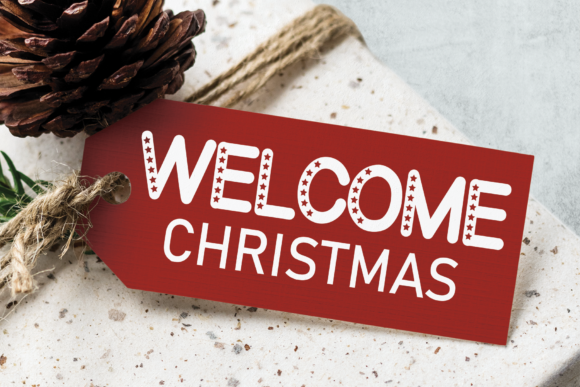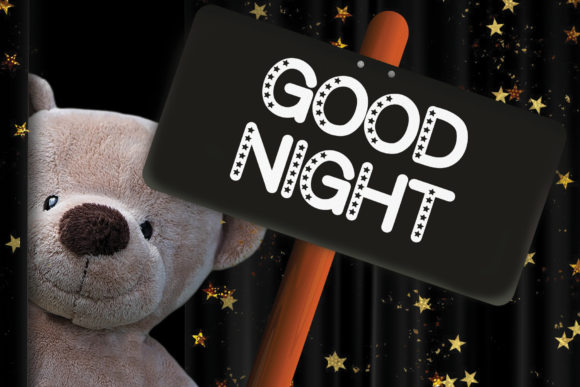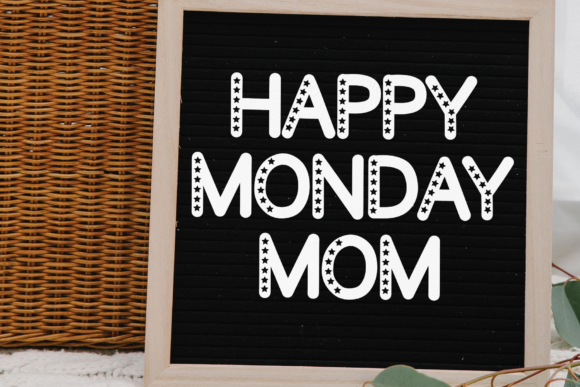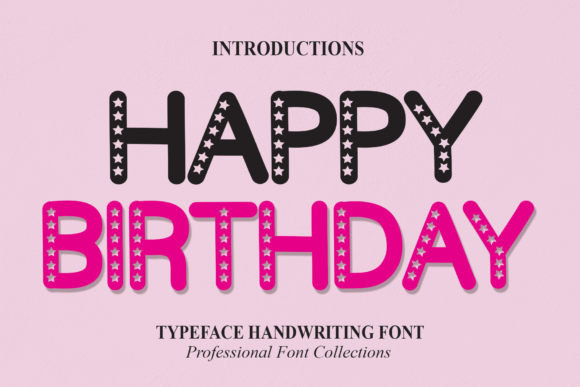
Introducing Happy Birthday Font: The Ultimate Celebration Companion
Are you tired of using the same old fonts for your birthday greetings, crafts, and digital designs? Look no further! Happy Birthday Font is here to revolutionize the way you create celebratory content. This cool and friendly display font is perfect for crafters, designers, and anyone looking to add a personal touch to their birthday messages.
What Makes Happy Birthday Font So Special?
Happy Birthday Font is more than just a font – it’s an experience. Its unique and playful design makes it perfect for a wide range of applications, from DIY crafts to professional digital designs. Whether you’re creating greeting cards, presentations, or social media posts, this font is sure to bring a smile to the recipient’s face.
Key Features of Happy Birthday Font
• Cool and Friendly Design: Happy Birthday Font boasts a modern and approachable design that’s perfect for birthday celebrations.
• Versatile: Use it for crafts, digital design, presentations, greeting cards, and more!
• Easy to Read: The font’s clear and legible design ensures that your message is conveyed with ease.
• Customizable: Experiment with different colors, sizes, and styles to make your design truly unique.
Why Happy Birthday Font Should Be Your Go-To Choice
With so many fonts available, why should you choose Happy Birthday Font? Here are just a few reasons why this font stands out from the rest:
• Unique and Eye-Catching: Happy Birthday Font is sure to grab attention and make your design stand out.
• Emotional Connection: The font’s friendly and approachable design helps create an emotional connection with the recipient.
• Time-Saving: With Happy Birthday Font, you can create stunning designs in no time, saving you hours of work.
Creative Ways to Use Happy Birthday Font
The possibilities are endless with Happy Birthday Font! Here are some creative ways to use this amazing font:
• DIY Crafts: Use Happy Birthday Font to create personalized birthday cards, gift tags, and decorations.
• Digital Designs: Add a personal touch to your digital birthday greetings, social media posts, and presentations.
• Greeting Cards: Create custom birthday greeting cards that will make the recipient feel special.
• Party Decorations: Use Happy Birthday Font to create eye-catching party decorations, such as banners and signs.
Tips and Tricks for Using Happy Birthday Font
To get the most out of Happy Birthday Font, here are some tips and tricks to keep in mind:
• Experiment with Colors: Try out different colors and combinations to find the perfect match for your design.
• Play with Sizes: Experiment with different font sizes to create visual interest and hierarchy.
• Add Effects: Add subtle effects, such as shadows or textures, to give your design an extra boost.
In conclusion, Happy Birthday Font is a game-changer for designers, crafters, and anyone looking to create amazing birthday content. Its unique and playful design, versatility, and ease of use make it the perfect addition to your font collection. So why wait? Download Happy Birthday Font today and start creating unforgettable birthday experiences!